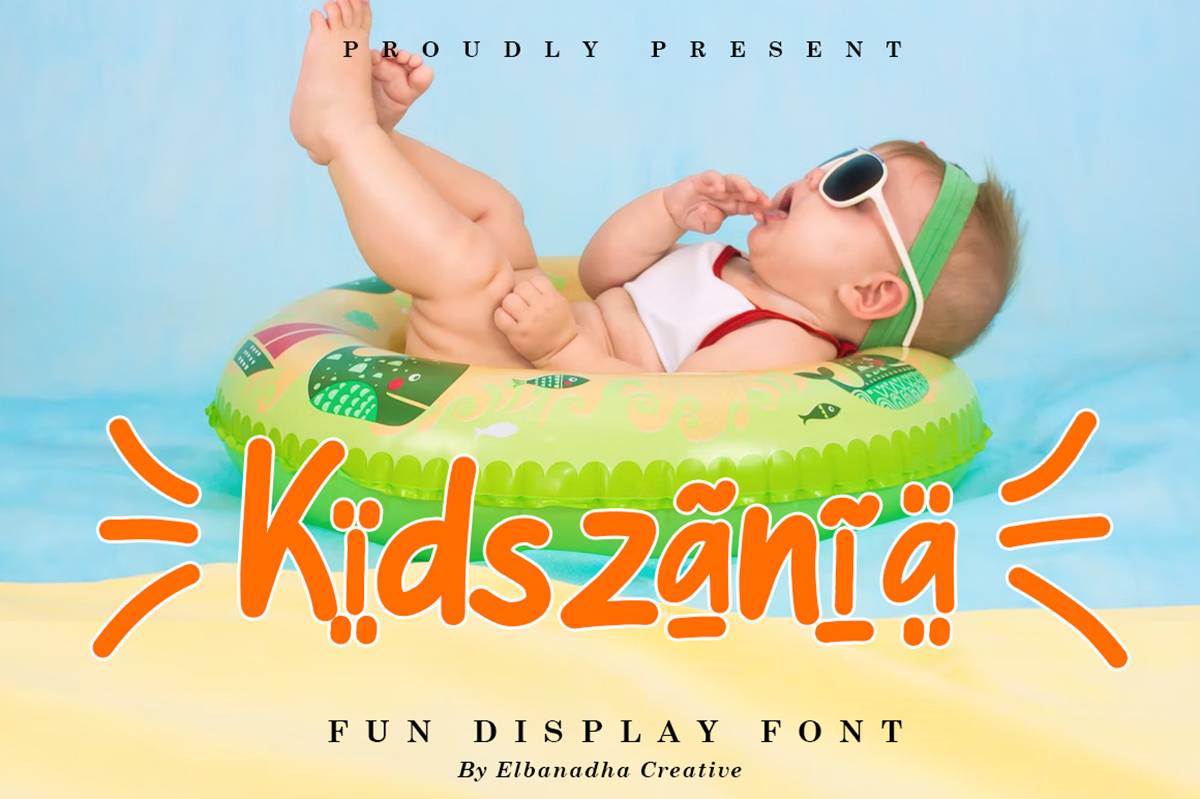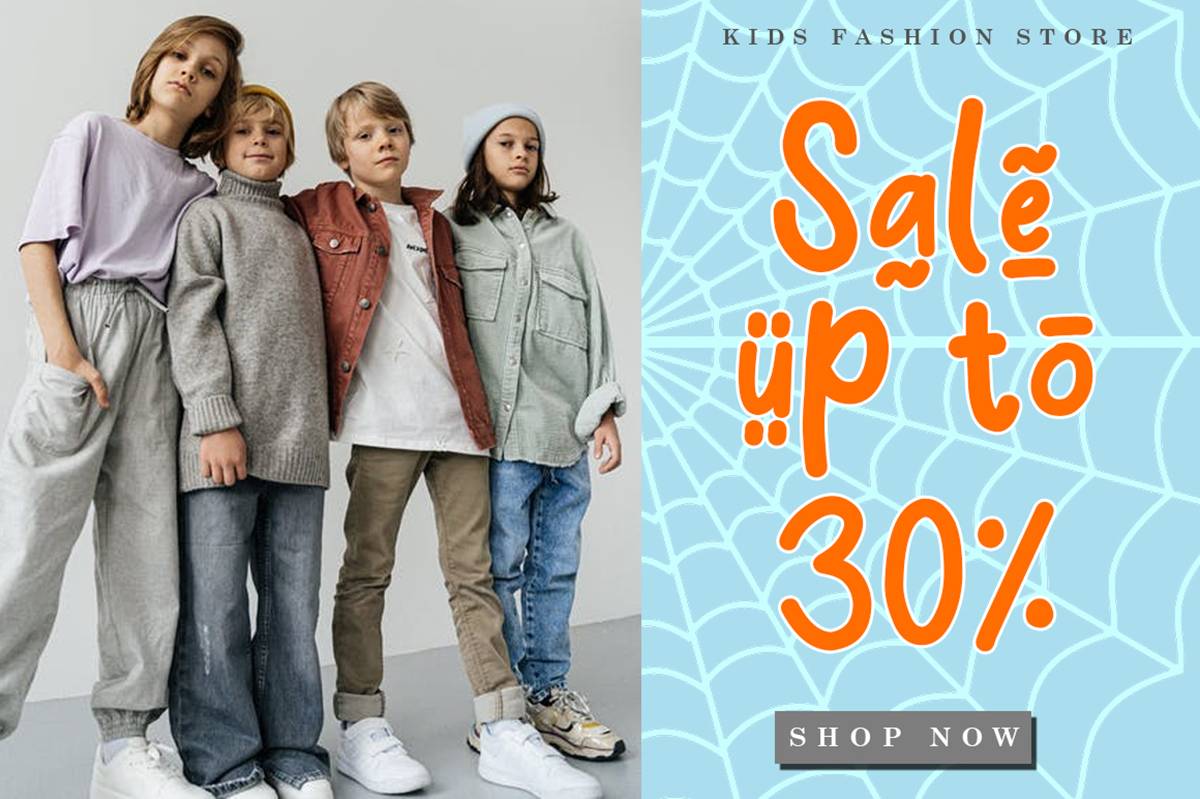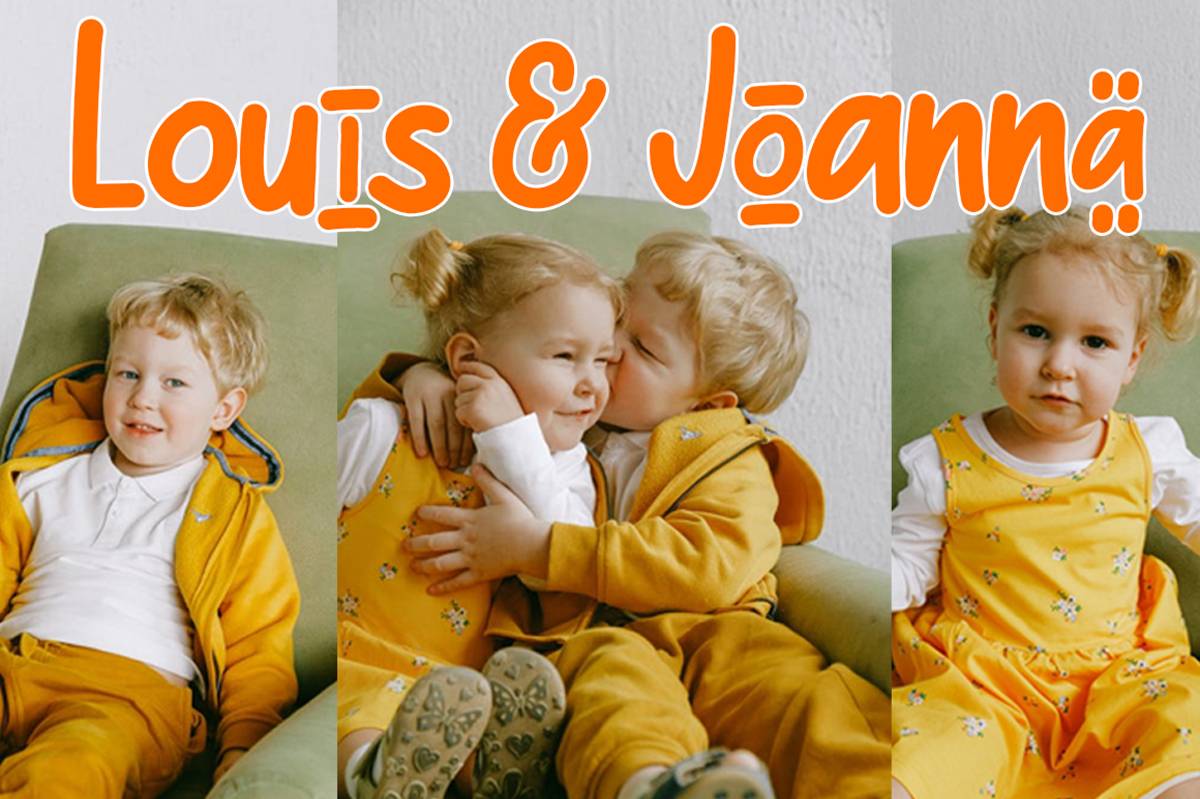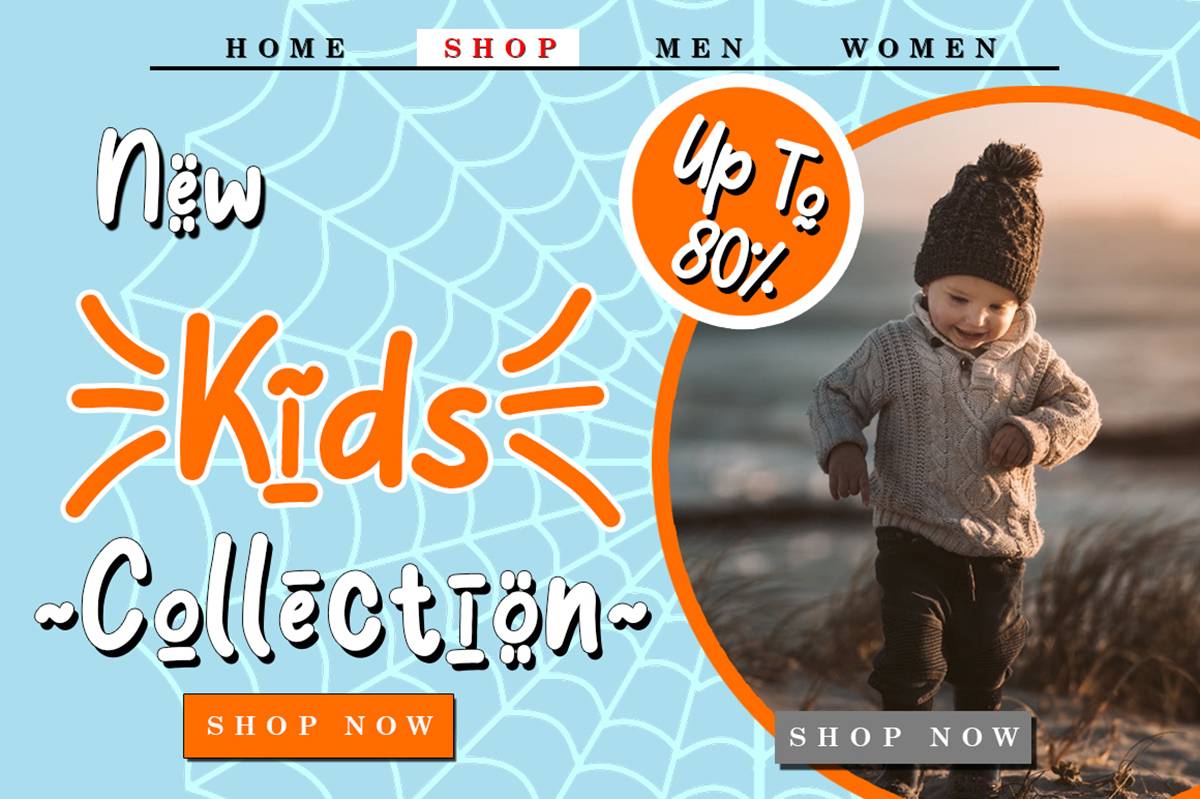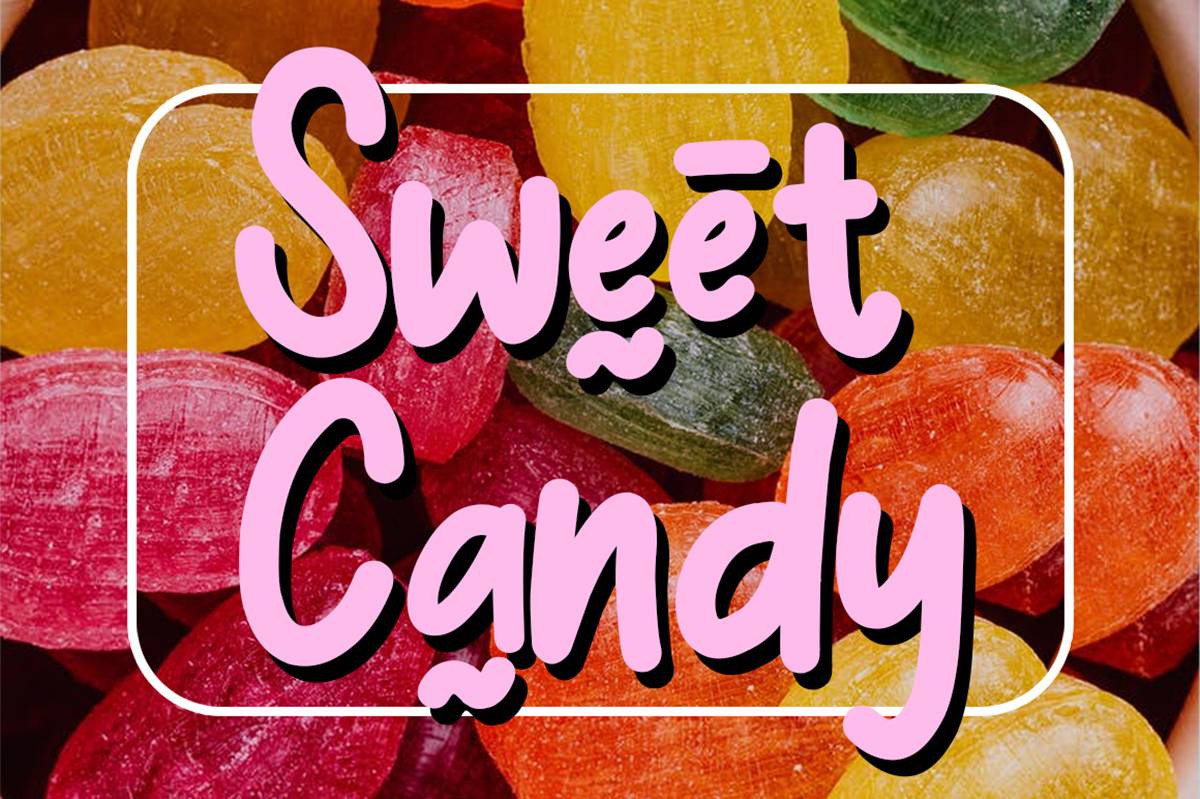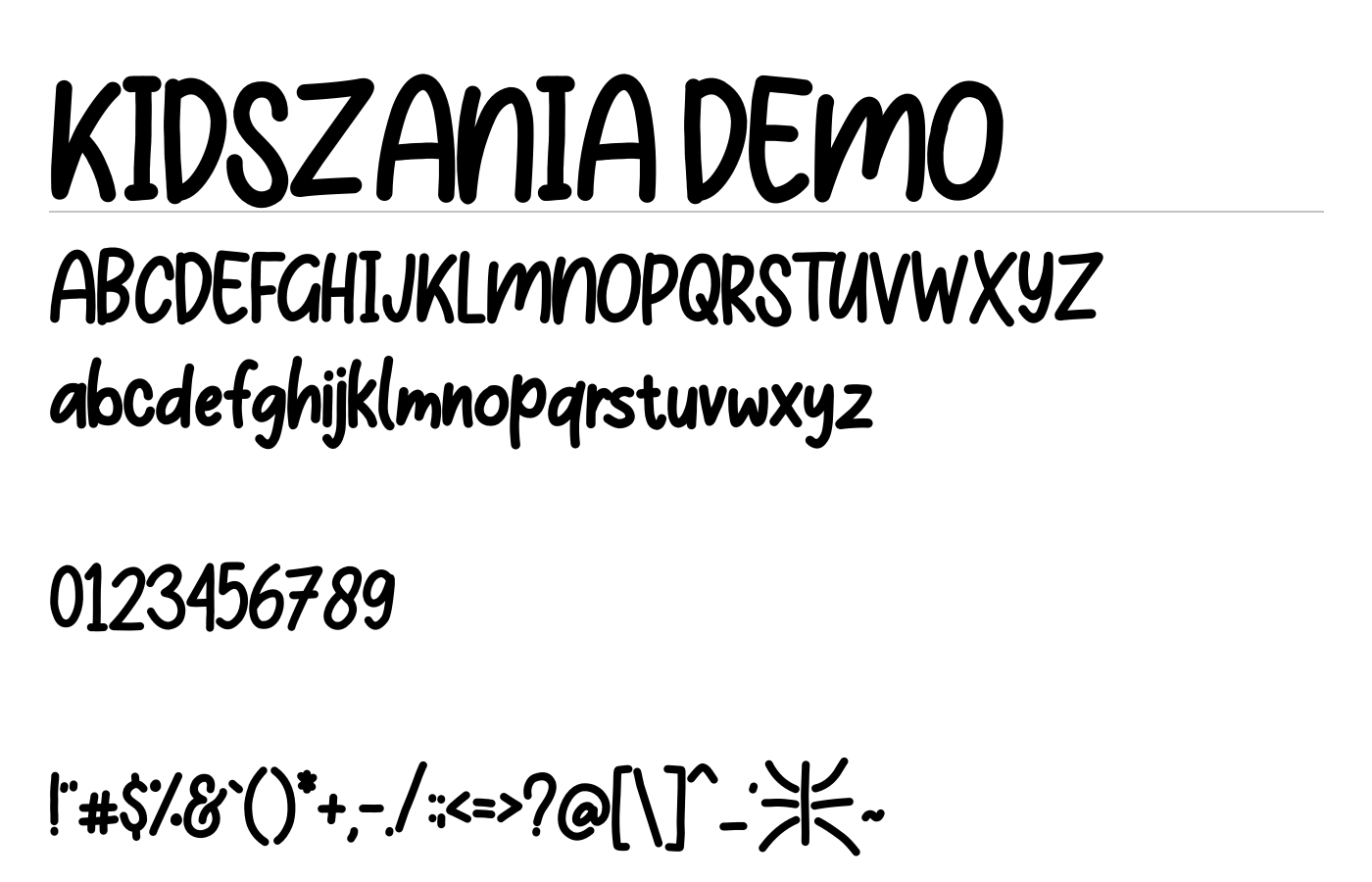
Kidszania is a playful, handwritten sans serif font with a casual and friendly style. Its rounded, slightly irregular letterforms and medium weight give it an approachable and youthful feel, making it perfect for children's projects, informal branding, and fun, lighthearted designs. The font works well in headlines, logos, and creative materials where a warm, personal touch is desired.
Kidszania Font
About Kidszania Font
| Font family | Kidszania Font |
| Release date | 2022-03-04 |
| Designer | Elbanadha Creative |